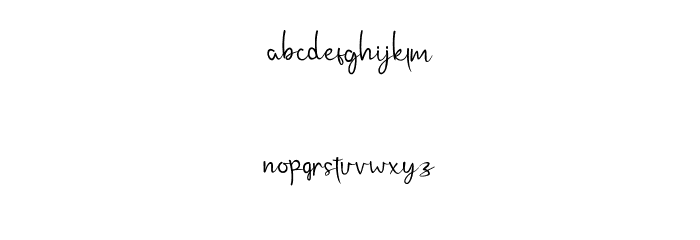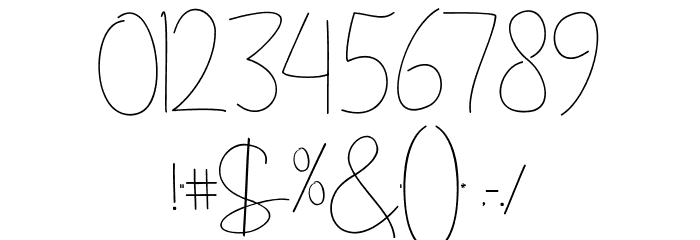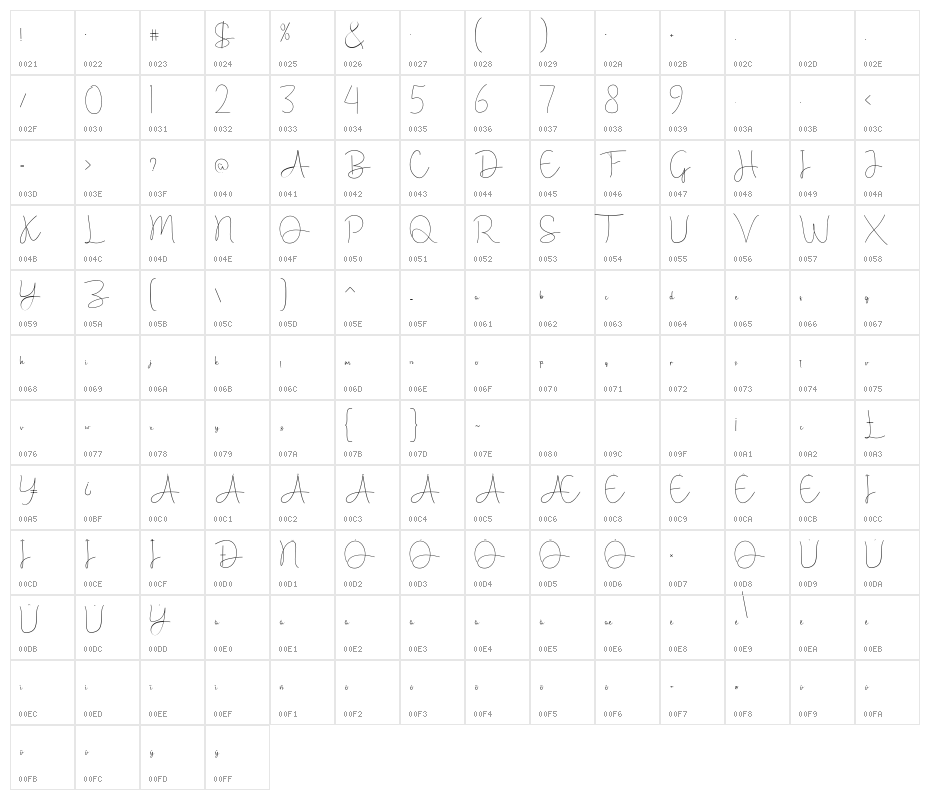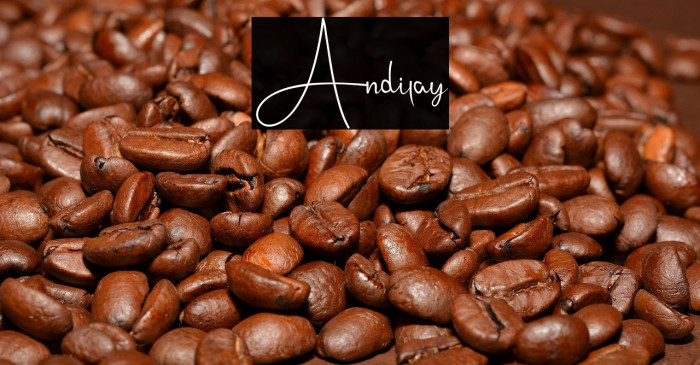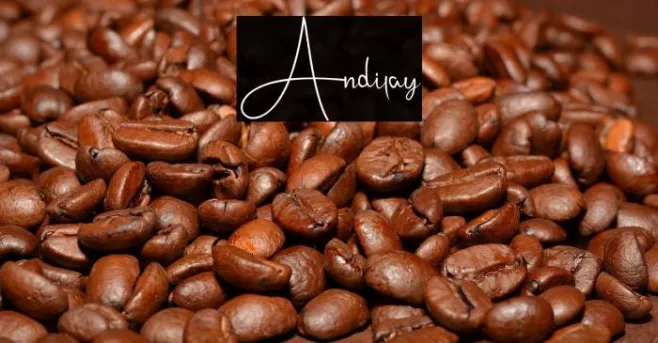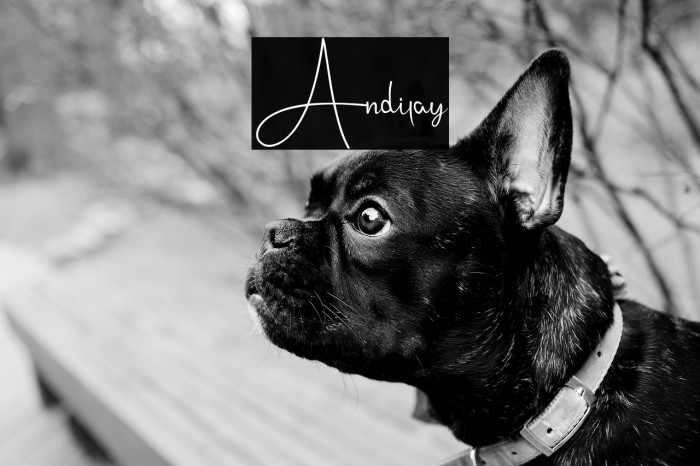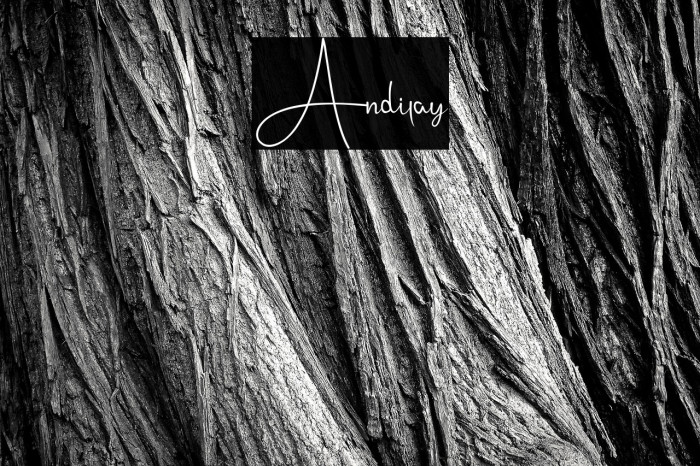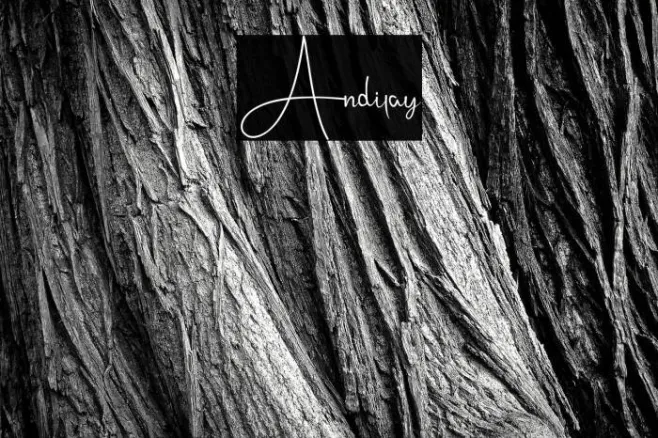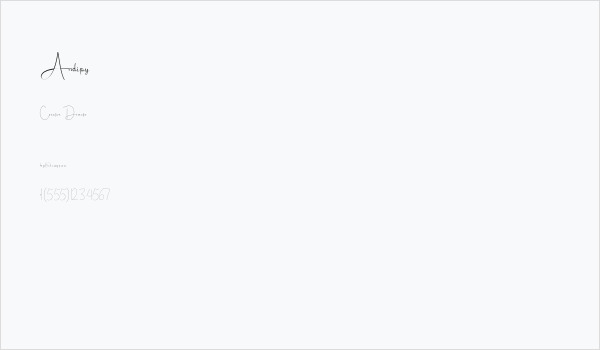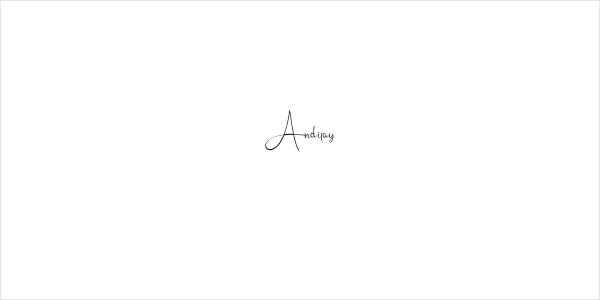
Andilay Font
This font features a delicate, flowing script with a handwritten feel. The uppercase letters are tall and slender, with elegant loops and curves that give a sense of movement and grace. The lowercase letters maintain a consistent style, with smooth connections and a slightly whimsical touch. Numbers and special characters are designed to complement the overall aesthetic, maintaining the same thin strokes and fluid lines. The font's airy and light appearance makes it suitable for projects that require a personal, artistic touch. Its unique style is both modern and timeless, making it versatile for various design needs.
A delicate, flowing script with a handwritten, elegant style.
- Proposed Projects: Ideal for wedding invitations, greeting cards, personal branding, and artistic projects.